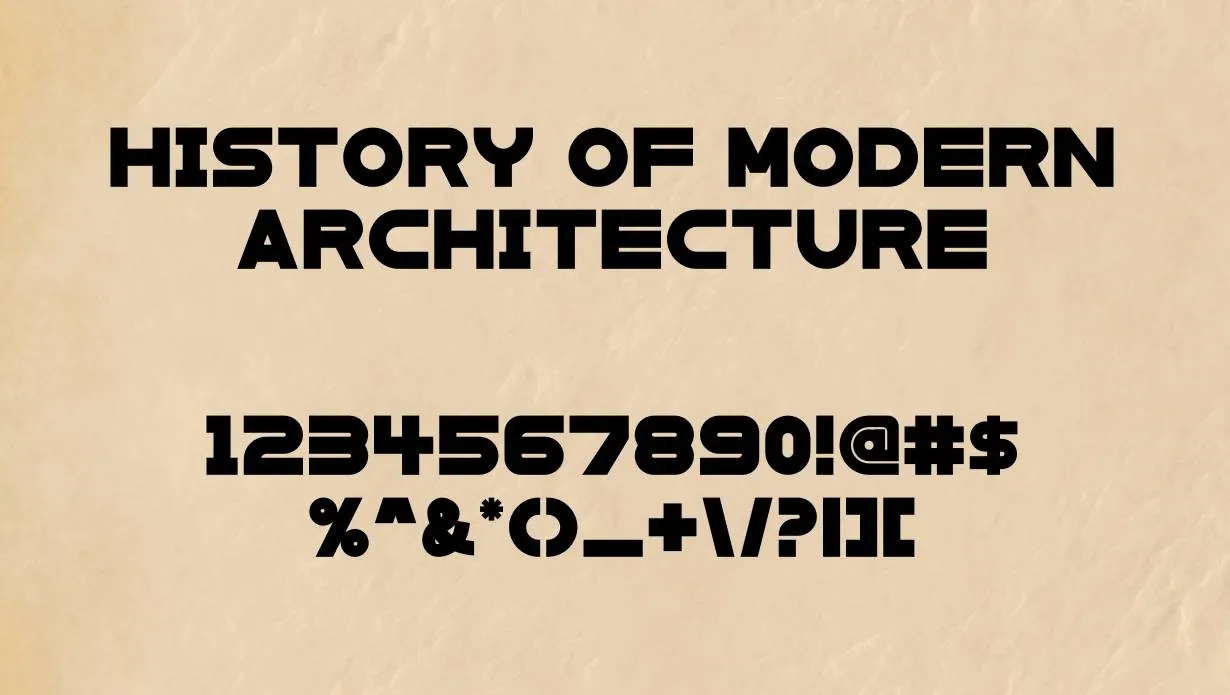
Kubos font is a bold and modern typeface that stands out with its strong lines and striking angles. It emanates power and contemporary appeal, making it an excellent choice for branding, headlines, or any design seeking a commanding impact.
This font demands attention, ensuring that any message displayed using it leaves a lasting impression. Its bold appearance and forceful presence create a sense of dynamism and strength, making it a compelling option for designs that require a vibrant and powerful look.
| Name | Kubos Font |
| Designer | Georges Yannopoulos |